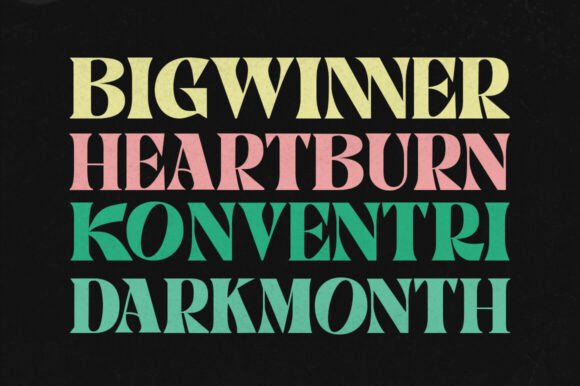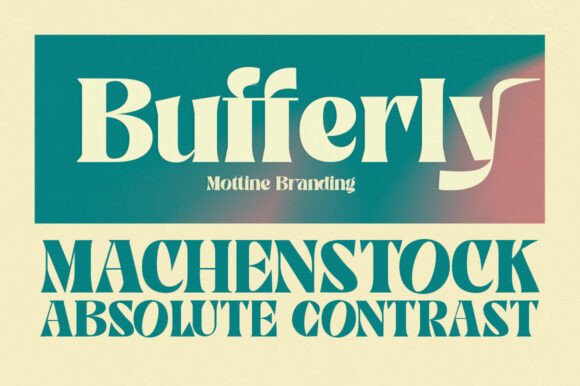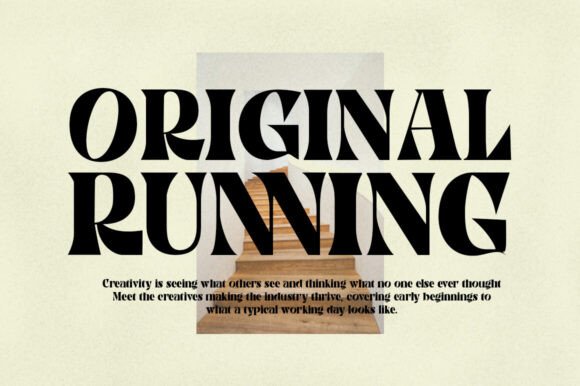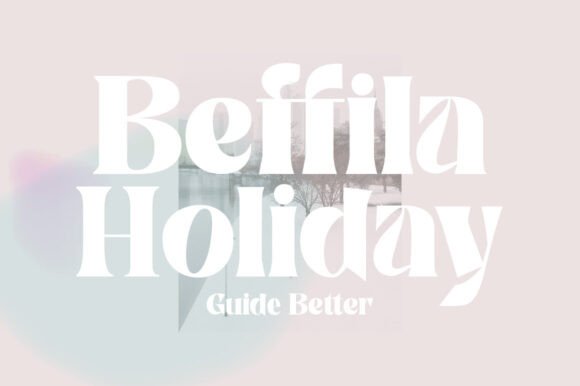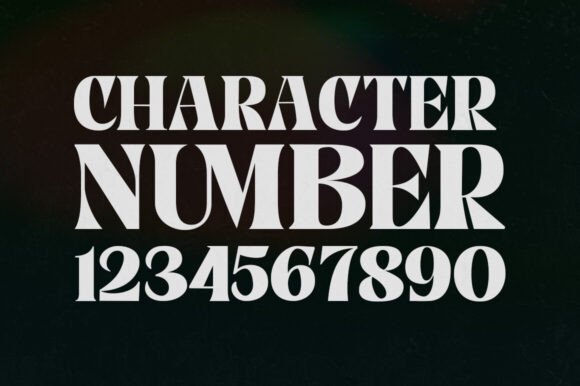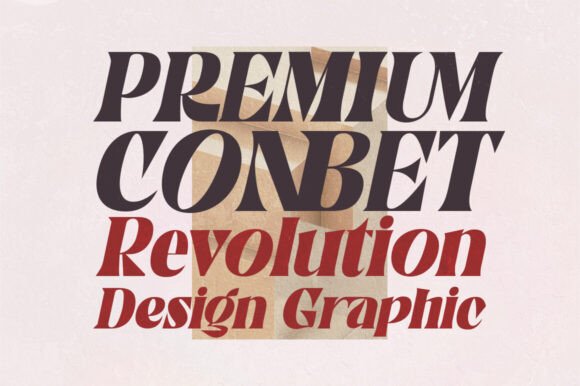
Introduction to Pionel Font Font
Have you ever been working on a creative project, pouring your heart and soul into it, only to feel like something’s missing? The words just aren’t coming together, and the design feels flat? That’s where a high-quality font like Pionel Font Font can make all the difference. This bold and assertive display serif font is the perfect addition to any designer’s library, and with its free download, you can elevate your creations to the next level.
Whether you’re working on a marketing campaign, a logo design, or a publication, Pionel Font Font has the potential to bring your ideas to life. Its transparent background makes it easy to layer and manipulate, giving you the creative freedom to experiment and push the boundaries of your design. With Pionel Font Font, you’ll have the perfect design resource to take your projects to new heights.
Key Features of Pionel Font Font
- Unique, modern design that can add a touch of sophistication to any creative project, from branding to digital art.
Honest Review: Pionel Font Font
I recently stumbled upon the Pionel Font Font, and I must say it’s a great addition to any designer’s toolkit. As a designer, I’m always on the lookout for high-quality design resources that can elevate my creative projects. And, the best part? It’s available for free download!
One of the standout features of this font is its transparent background. This makes it super versatile and easy to work with. I love how it can be used for a variety of design projects, from logos to social media graphics.
Here are some of the things that work well: ✨
- High-quality design: The font is crisp and clean, making it perfect for any project.
- Transparent background: This feature makes it easy to work with and super versatile.
However, I did notice a few limitations: ⚠️
- Limited font styles: While the font is high-quality, it’s a bit limited in terms of font styles.
- No bold or italic options: This might be a drawback for designers who need to create bold or italic text.
Overall, I’m impressed with the Pionel Font Font. It’s a great design resource that’s perfect for designers who want to create high-quality, creative projects. With a bit more development, I think it could be a top-notch font for designers of all levels.
Pionel Font Font is ideal for creating high-quality designs for branding, marketing materials, and digital products. Its unique style and versatility make it a popular choice among designers and creatives.
Comparison to Pionel Font Font: Open Sans has a more rounded and friendly feel compared to Pionel’s edgy and geometric look. Open Sans is also highly legible in both print and digital formats.